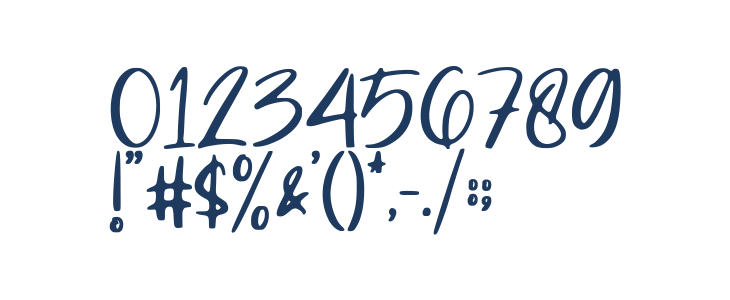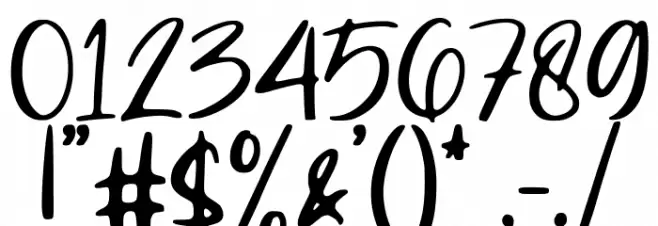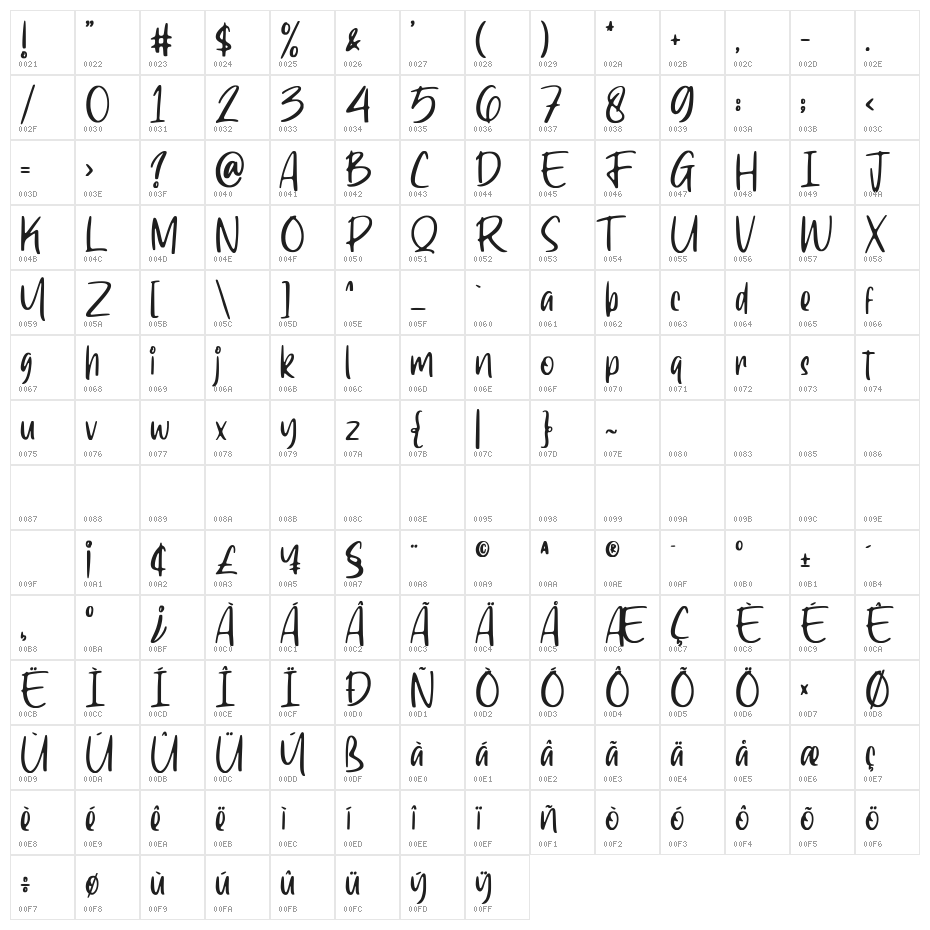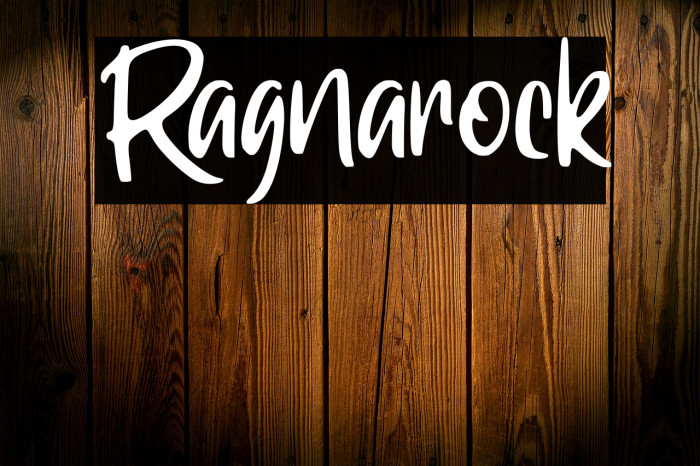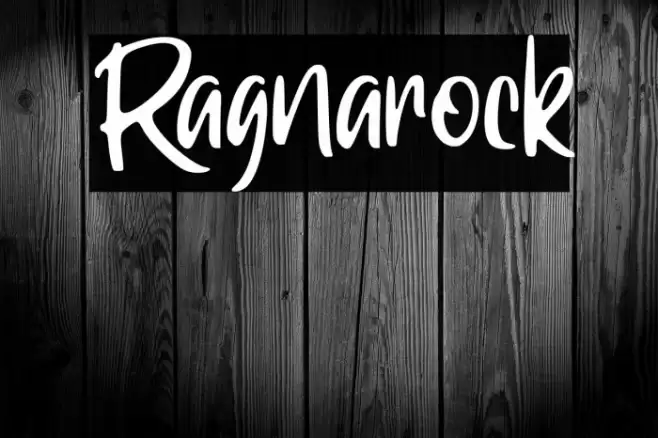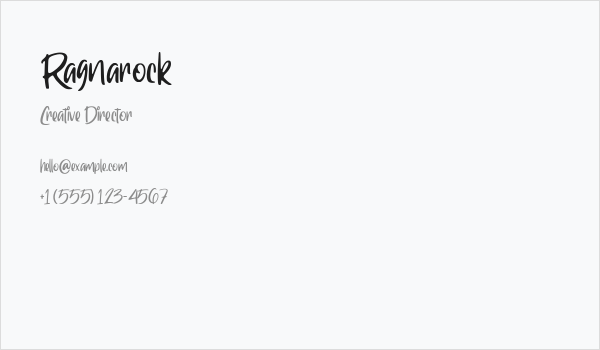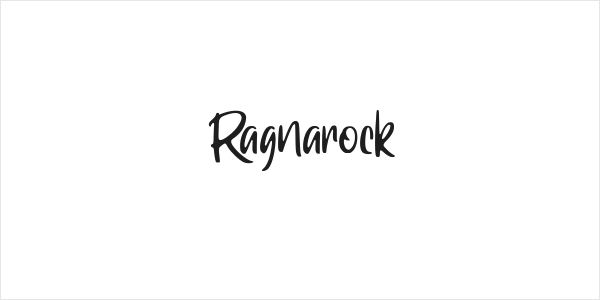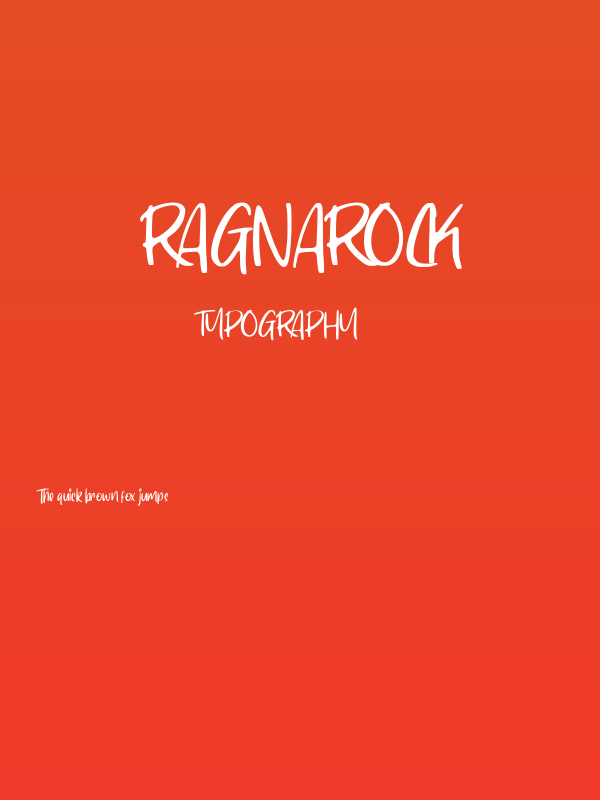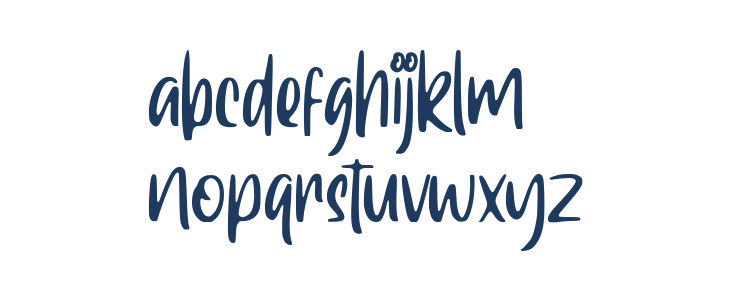
Ragnarock Font
Ragnarock Description
This font exudes a bold and energetic personality with its hand-drawn, brush-like strokes. The uppercase letters are tall and slightly condensed, giving a sense of strength and dynamism. The lowercase letters maintain a playful and casual vibe, with some characters featuring unique loops and curves that add to its distinctive style. Numbers and special characters are equally expressive, maintaining the overall aesthetic. The font's irregularities and organic flow make it perfect for projects that require a personal touch or a sense of movement.